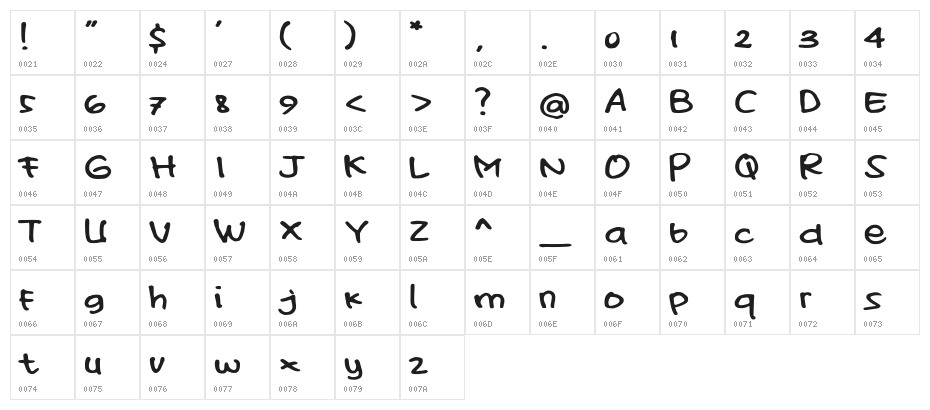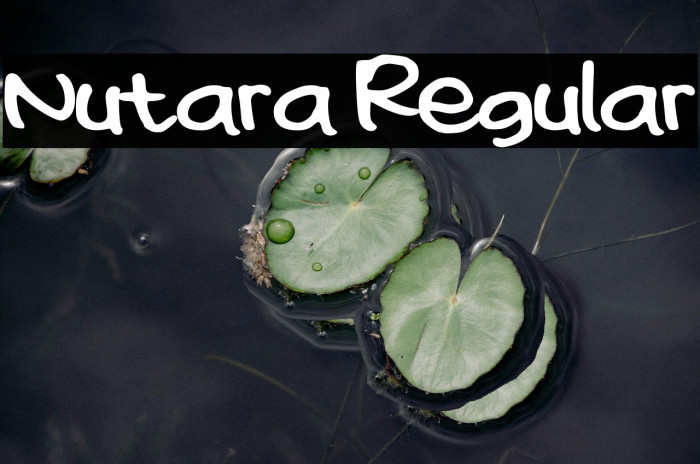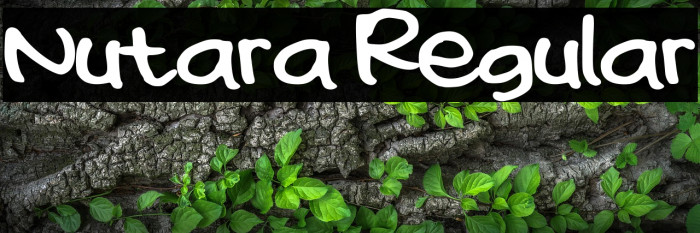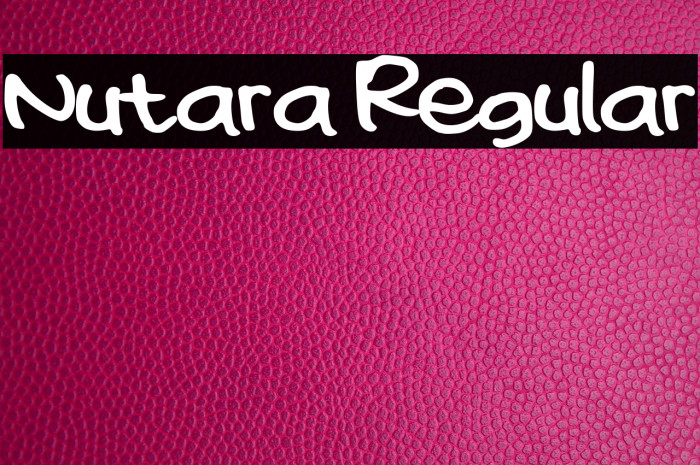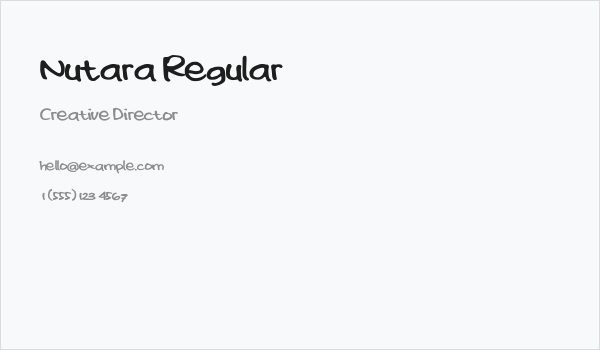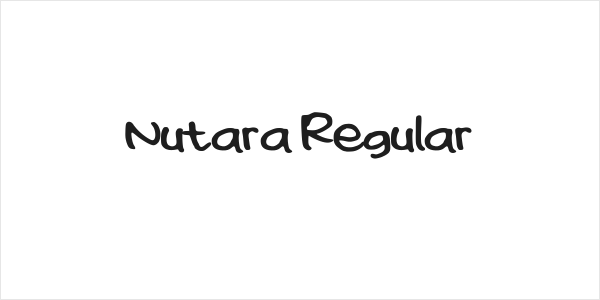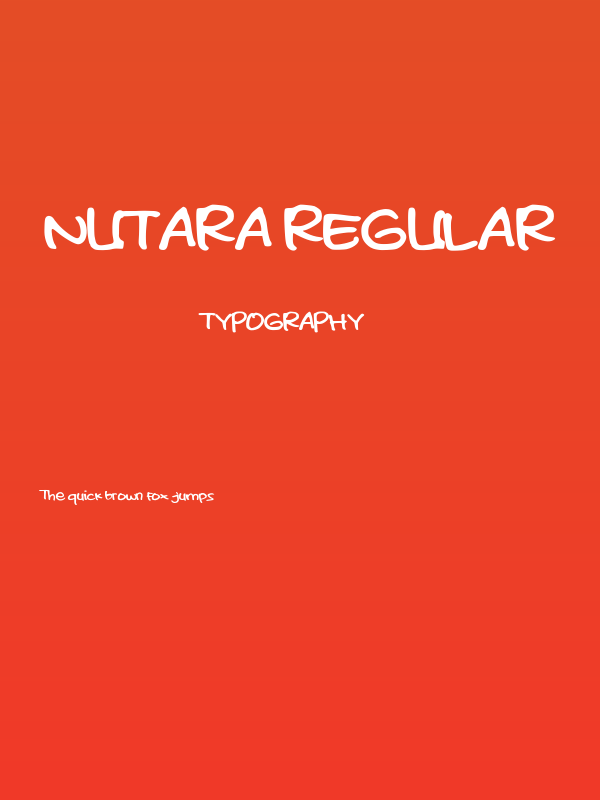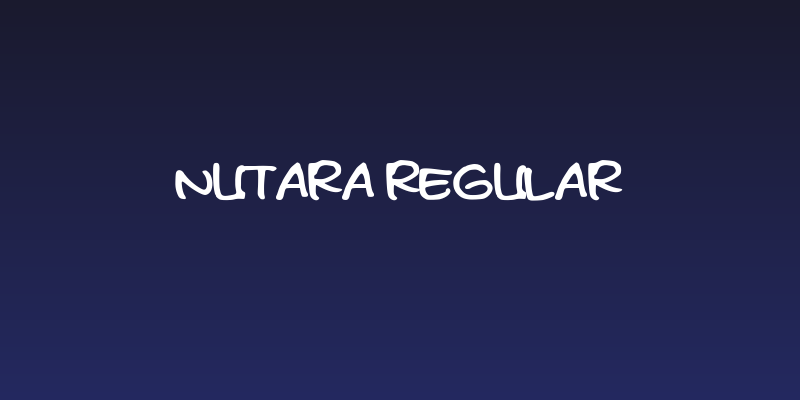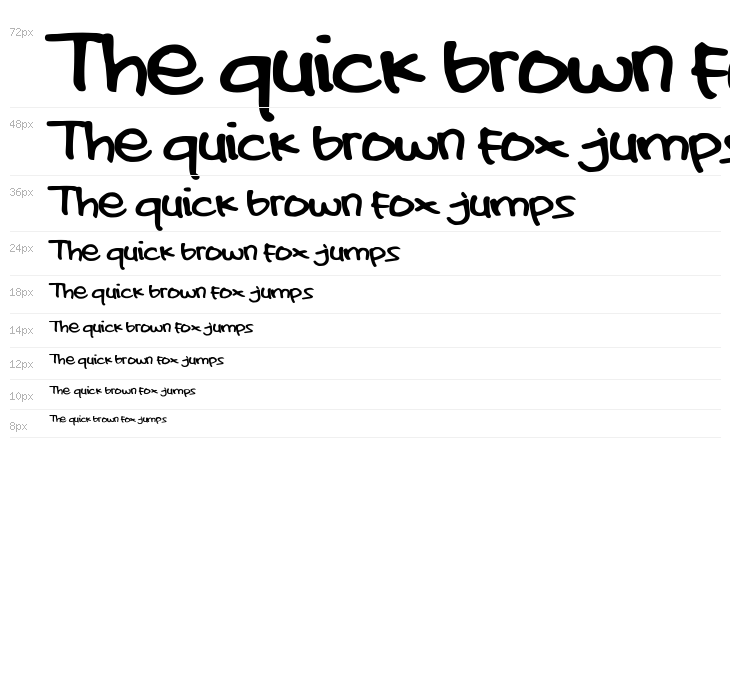
Nutara Regular Font
Nutara Regular Description
This font features a playful and informal style, characterized by its rounded and slightly irregular letterforms. The strokes are bold and consistent, giving it a friendly and approachable appearance. The uppercase and lowercase letters maintain a cohesive look, with a slight slant that adds to its casual charm. The numerals and special characters are designed to match the overall aesthetic, ensuring a harmonious look across all text. Its unique style makes it suitable for projects that require a touch of whimsy and creativity.
| Proposed Projects | Ideal for children's books, casual branding, playful posters, and creative invitations. |